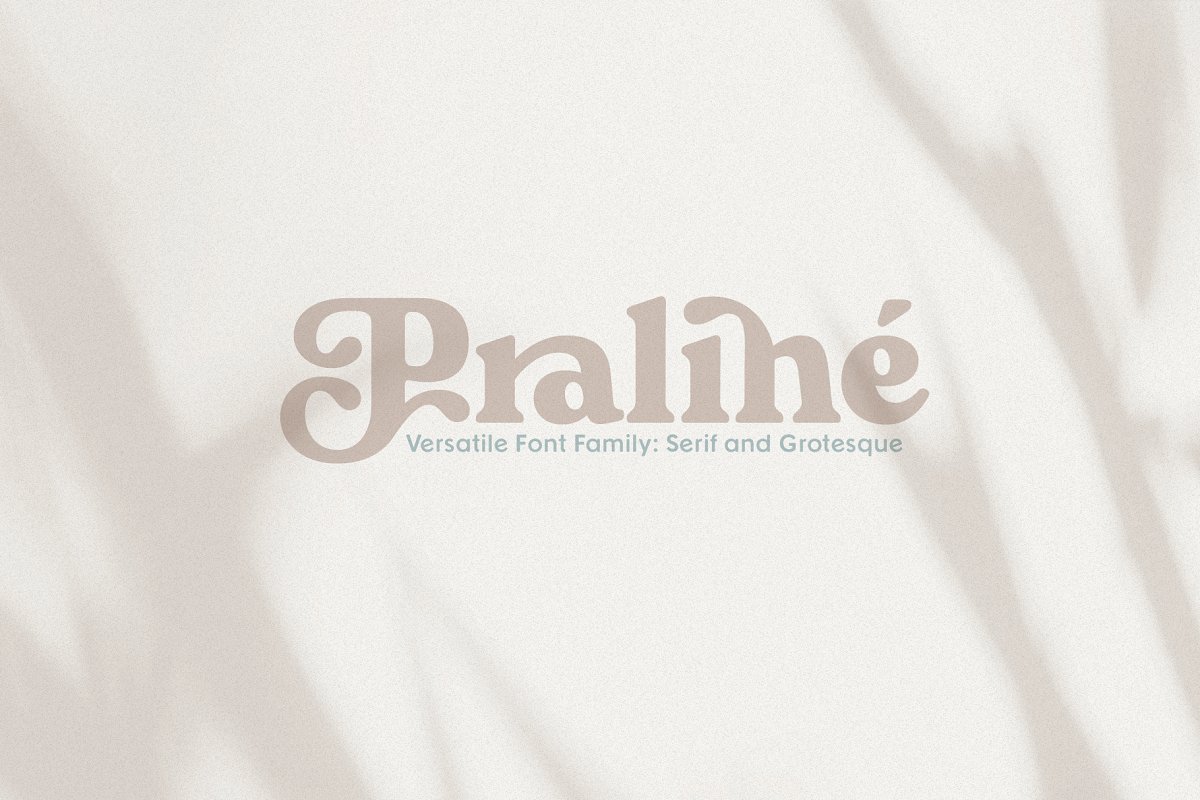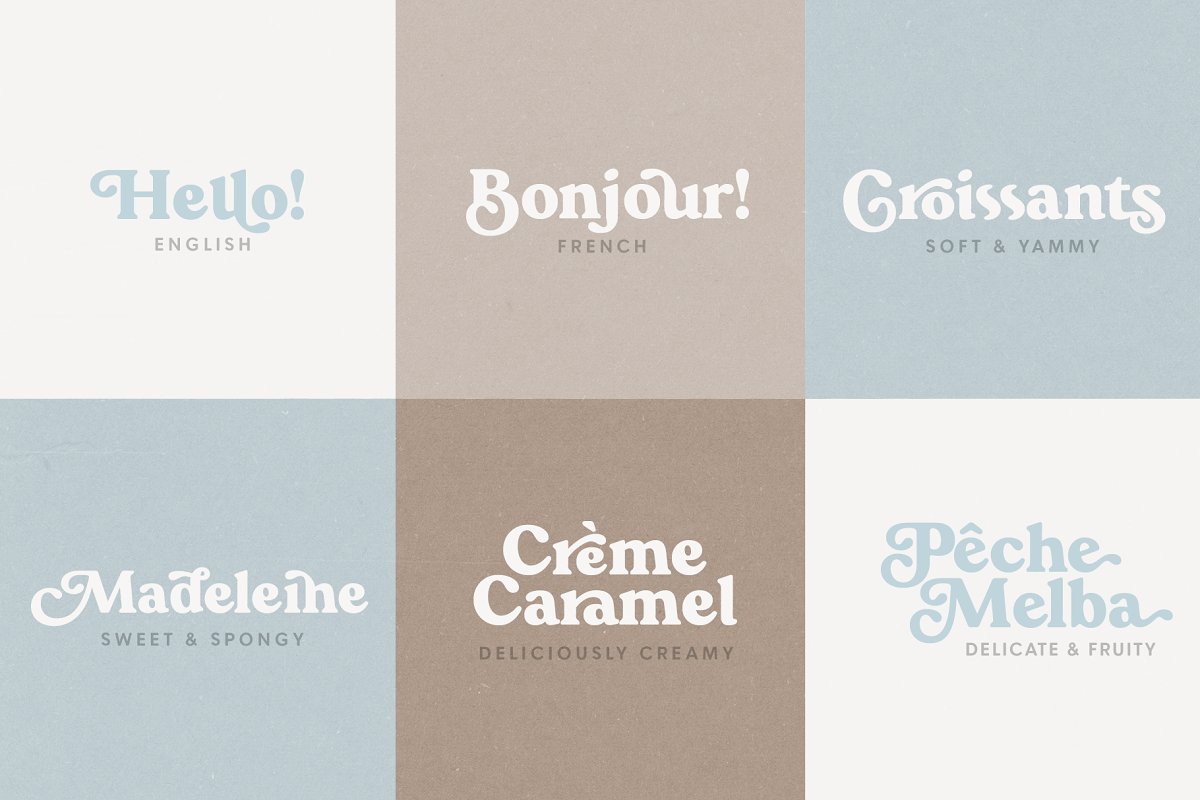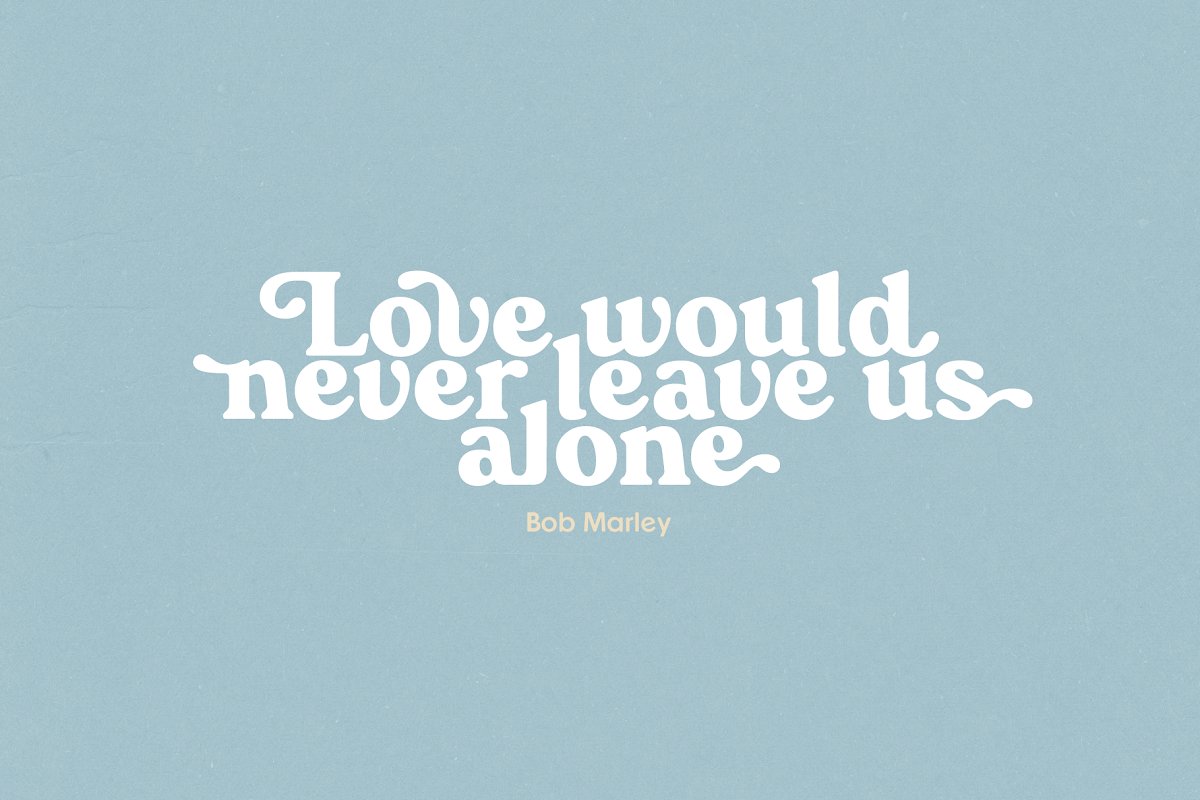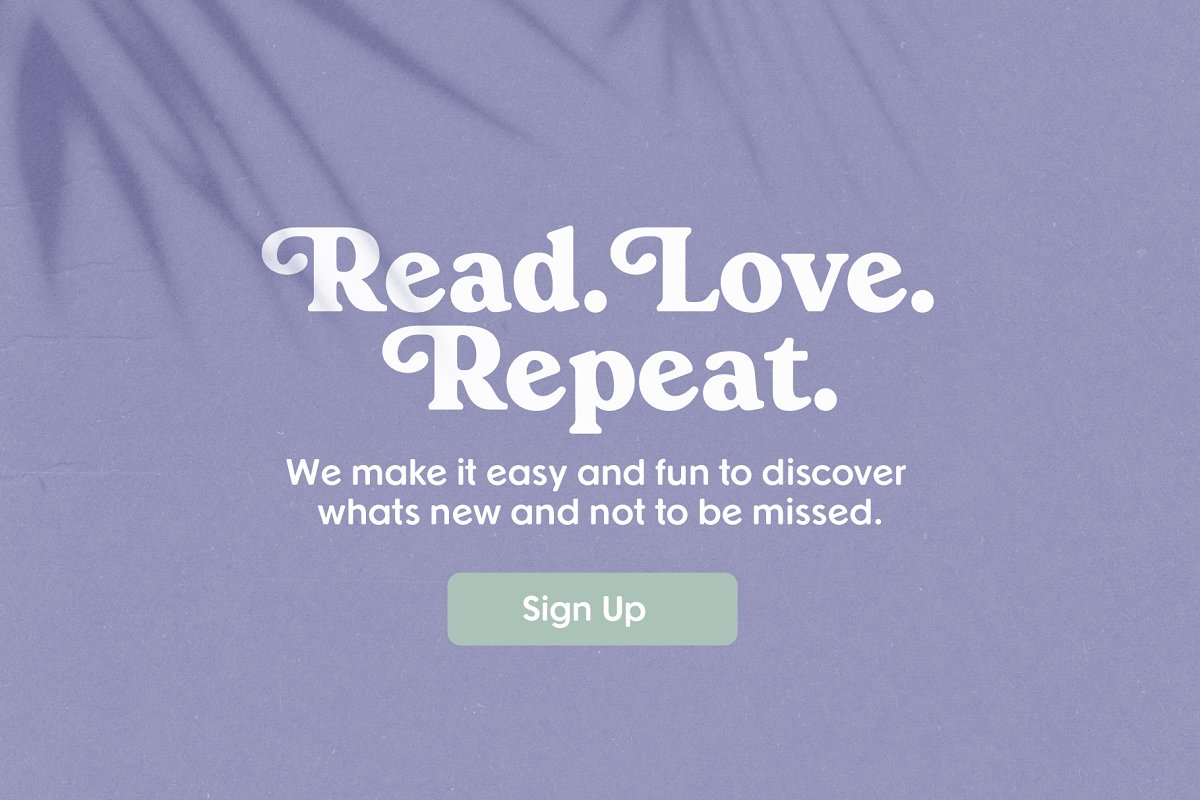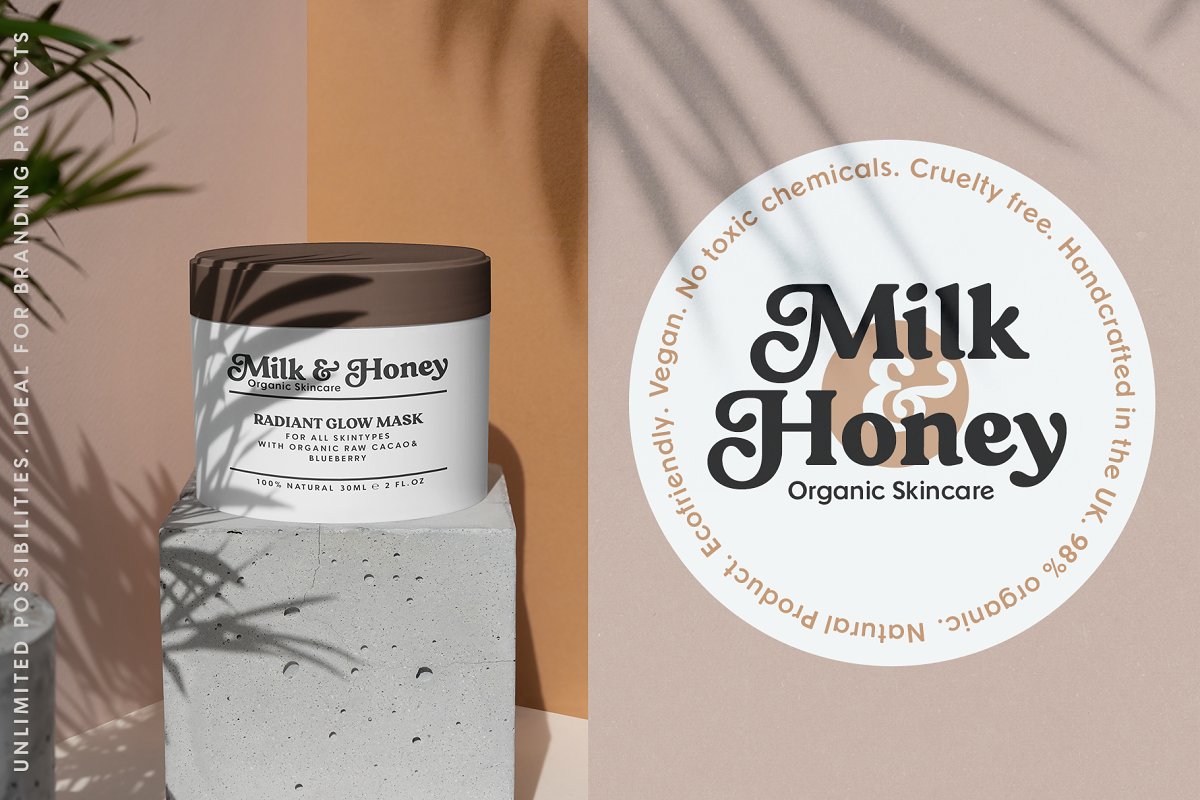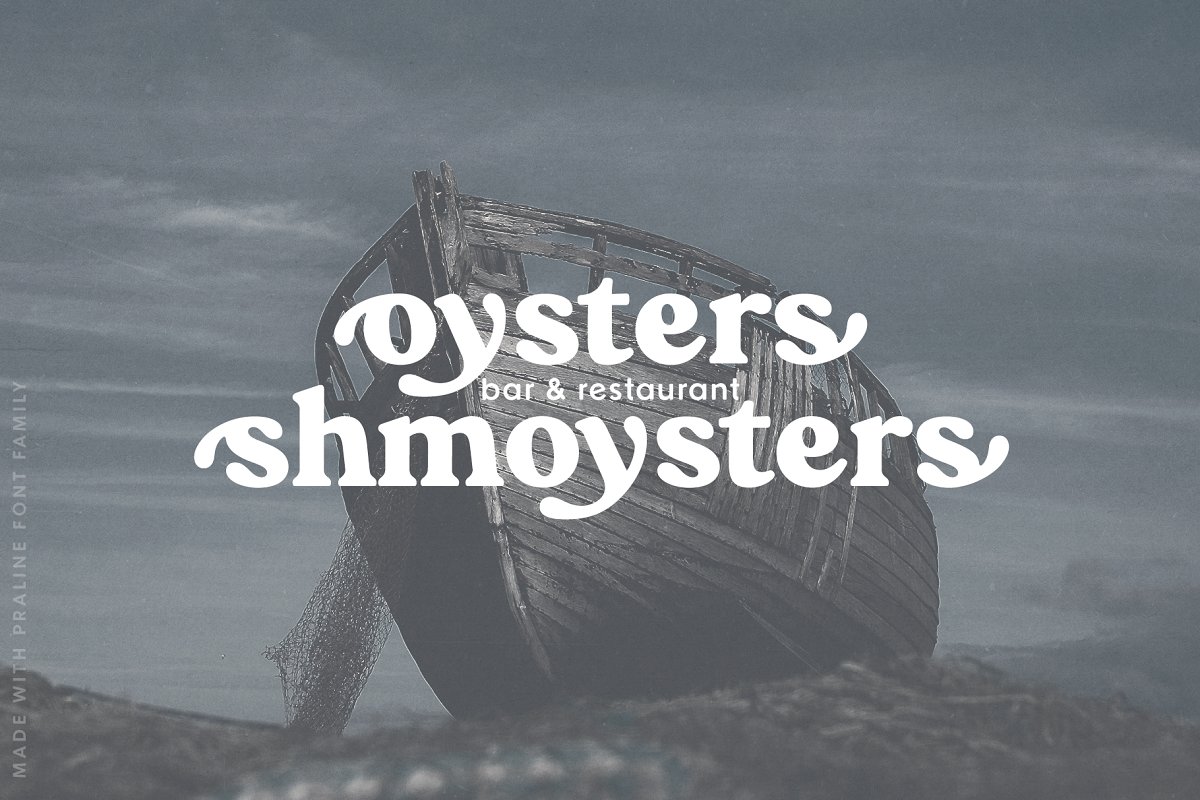
About the Praline Family Font
50% off – Introductory discount, Valid for the next 45 days only, After that – full price of $39, Praline is a font family that contains two fonts – charged with OpenType features vintage soft serif and a sans serif with corresponding forms and softness, Serif: Grandma’s sweet and soft recipe with more than 1300 ingredients (lots of alternates, swashes, ligatures and design elements)
This font takes it’s inspiration from Goudy, Windsor and Bookman typefaces, Sans serif: Soft and friendly, it is a simple 1970s inspired grotesque to use as a support font with Praliné Serif or any other serif or script font of your choice, Multilingual